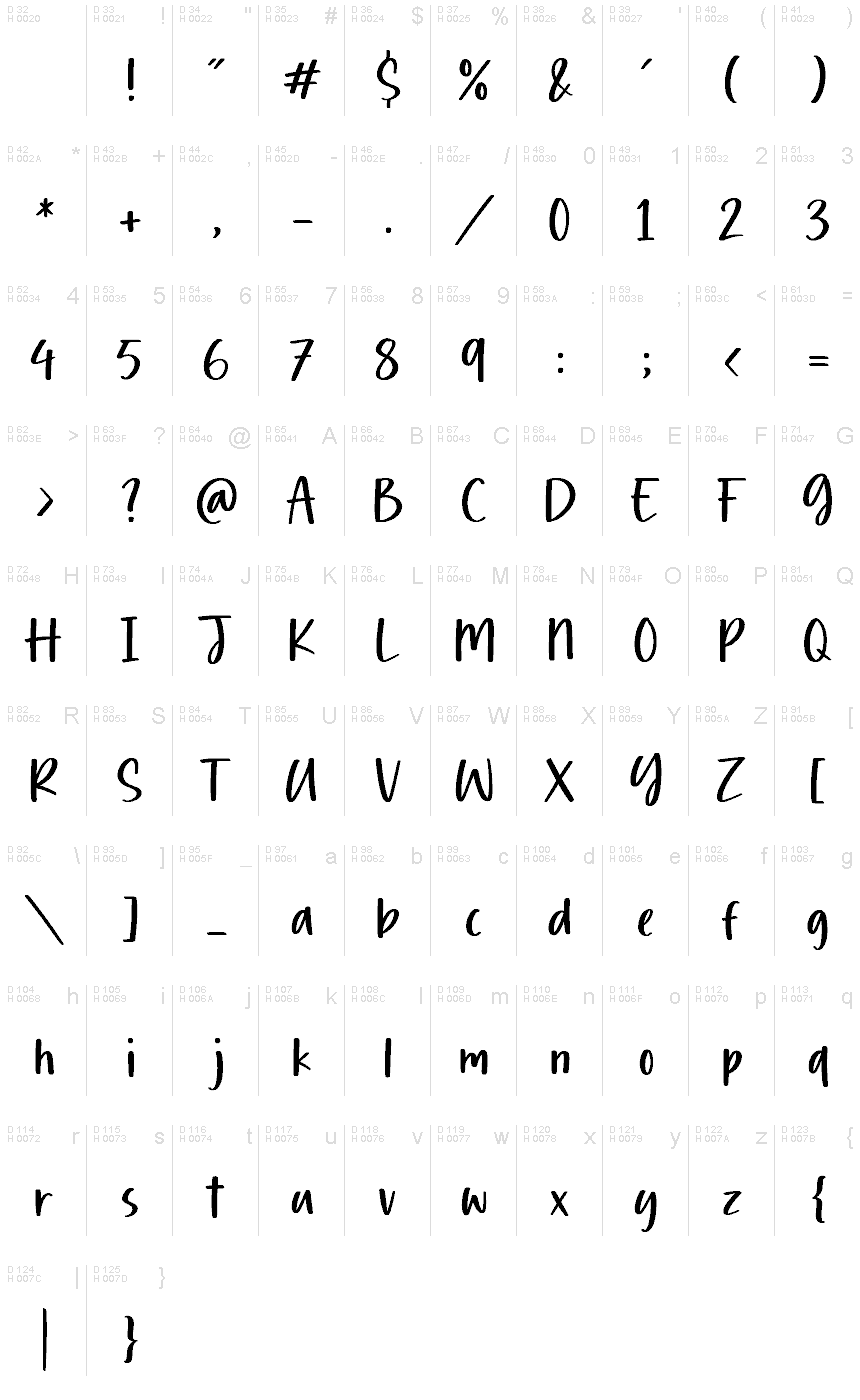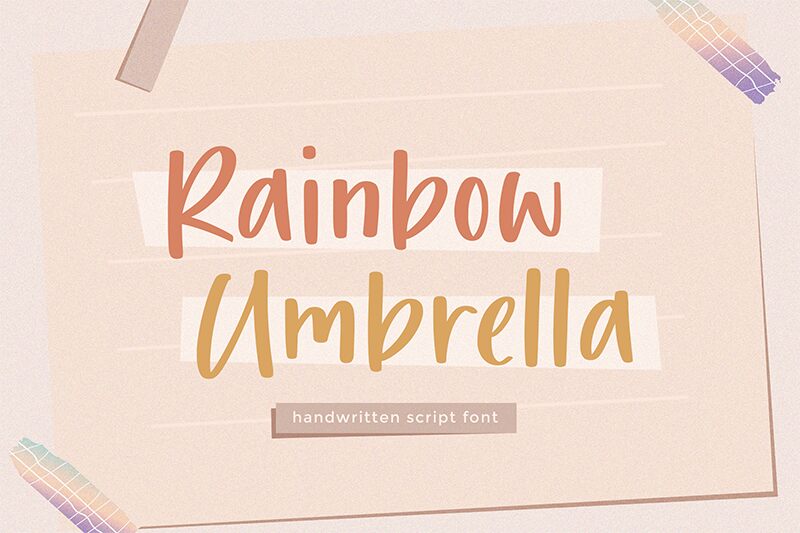
Rainbow Umbrella
In the right hands, the simple can be extraordinary, the familiar, unforgettable. Like a bright umbrella after a summer shower, our Rainbow Umbrella font offers a new perspective to everyday things.
Inspired by modern calligraphy, its fluid form and bold appearance would be a great addition to social media posts, book titles, and branding, adding a touch of personal experience that makes all the difference. This handcrafted font can be used in personal projects (e.g. invitations, cards, menus, scrapbook pages), but also in commercial projects with the free license.